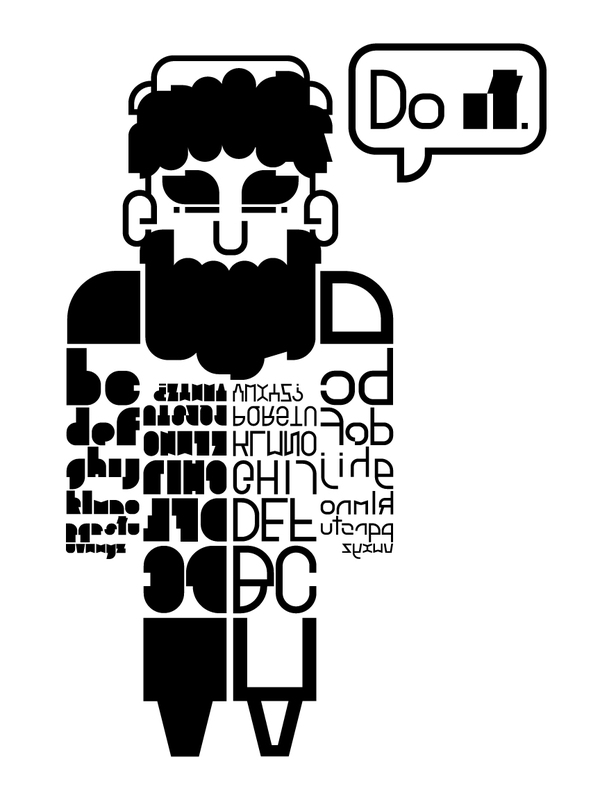
Jesse Tarlton
Typographer and graphic designer in Golden, CO. Creator of the all caps titling sans typeface called Bass Face (2011) and of the experimental pair of fat geometric display typefaces Do It Soft and Do It Hard (2010). |